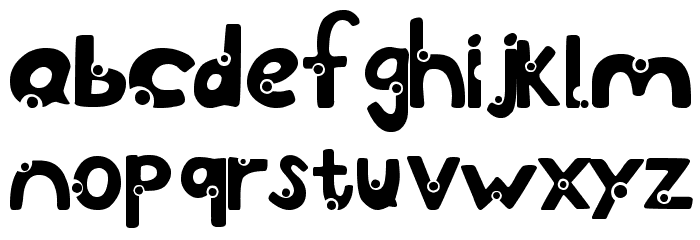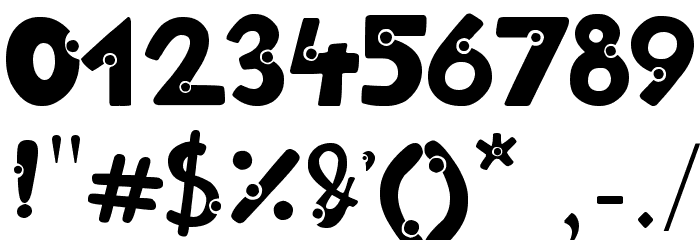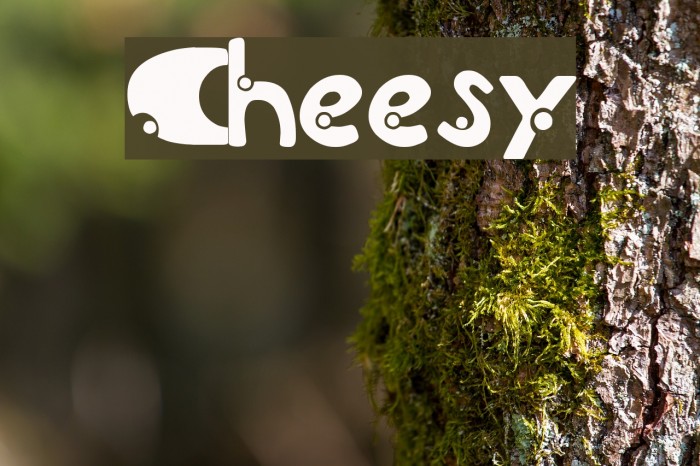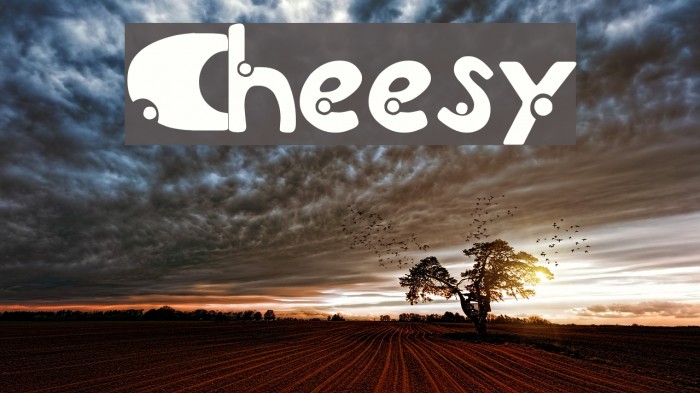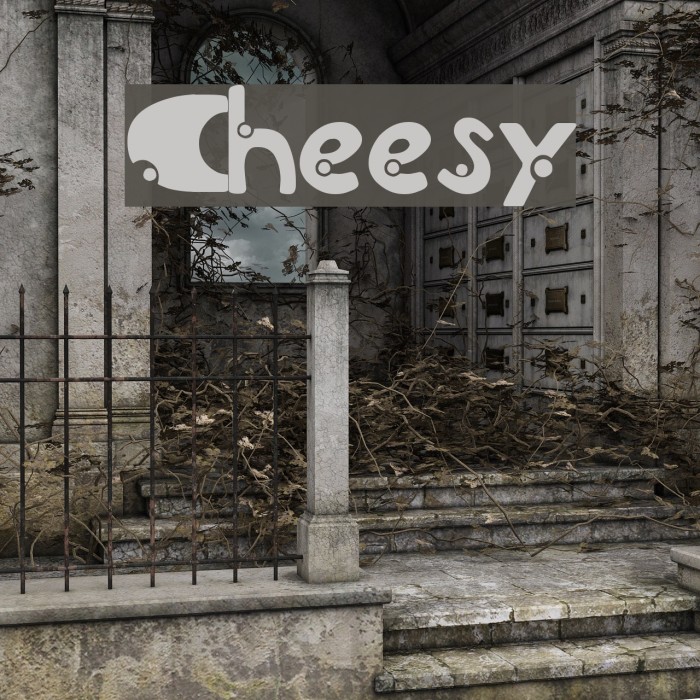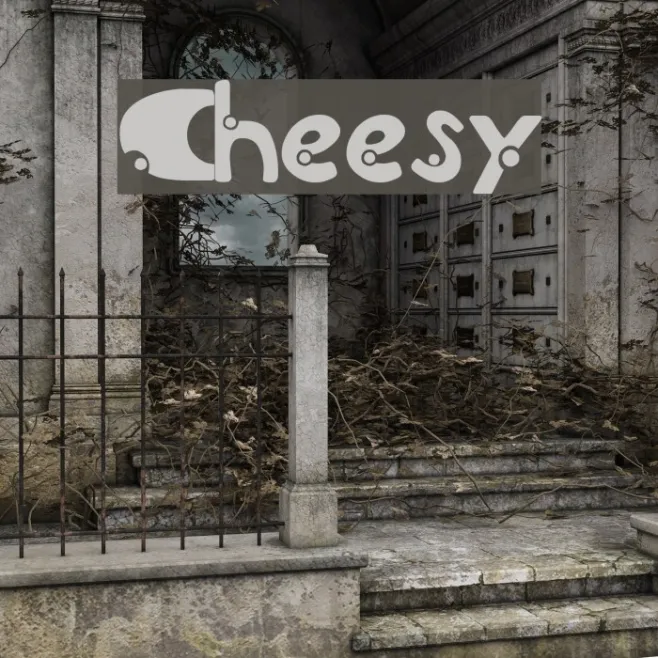
Cheesy Font
This playful and whimsical font features bold, rounded characters with unique cut-out circles that add a quirky and fun element to the design. The letters are thick and substantial, making them stand out with a distinctive personality. The font maintains a consistent weight throughout, with a slightly condensed width that enhances its playful nature. The circular cut-outs are strategically placed, creating a sense of movement and dynamism. This font is perfect for projects that require a touch of humor and creativity, such as children's books, playful branding, or eye-catching posters.
A bold, playful font with unique circular cut-outs and a whimsical style.
- Proposed Projects: Ideal for children's books, playful branding, posters, and creative designs.
- Overall Style: Playful, Whimsical